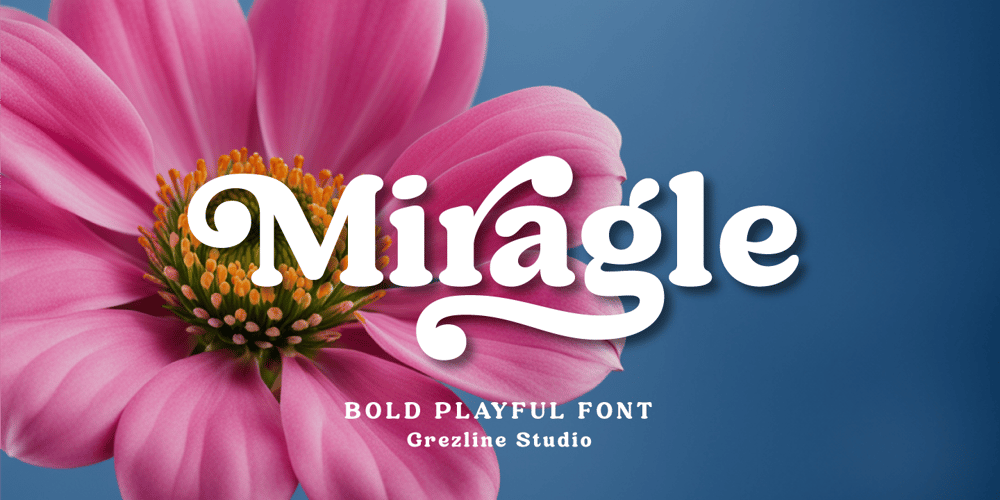
Miragle
Miragle font
Miragle Font Family was designed by Akhmad Reza Fauzi and published by Grezline Studio. Miragle contains 1 styles and family package options. Miragle is a bold playful font with lot of alternate glyphs. This font is the perfect match for groovy retro design. Miragle font is ideal for logos, posters, packaging, banner, and other creative projects that demand visually aesthetic and distinctive elements.Feature :- Ligature & Alternate glyphs- Multilingual Language- Works on PC & Mac- Simple installations- Accessible in the Adobe Illustrator, Adobe Photoshop, Adobe InDesign, even works on Microsoft Word.Thank you!Grezline Studio – Akhmad Reza Fauzi